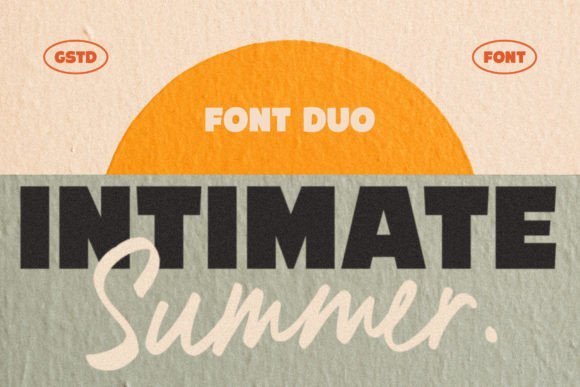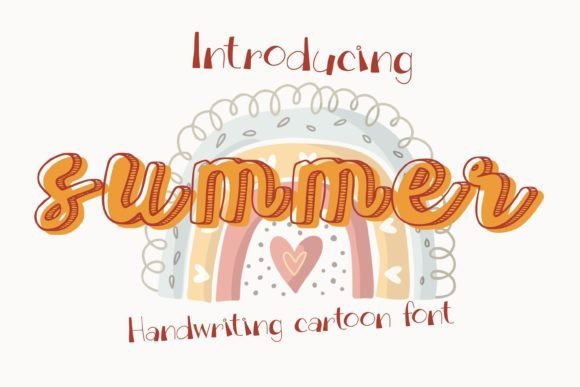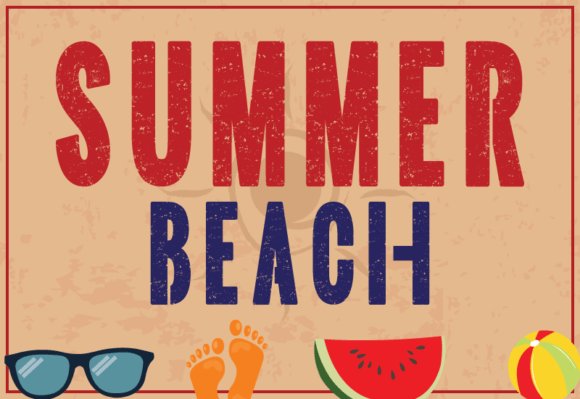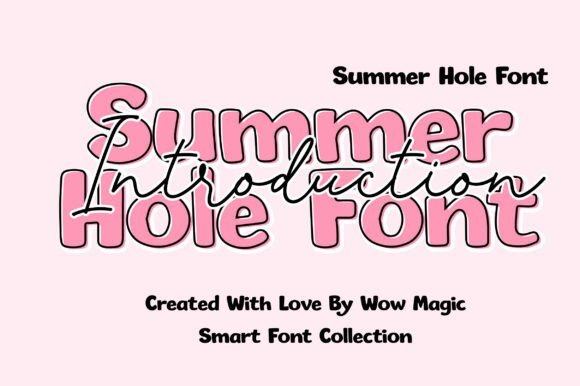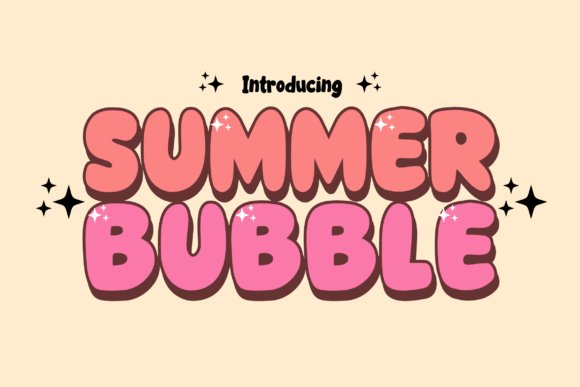
57 Best Summer Fonts for Your 2026 Design Projects
When the sun starts shining, your designs need to reflect that warm, energetic atmosphere. Finding the perfect Summer Fonts is the key to creating posters, social media posts, and tropical branding that feels fresh for the 2026 season. We have compiled 57 unique options that range from playful scripts to bold warm-weather lettering, ensuring your project catches the eye of everyone enjoying the heat.
1. Sunday Summer Font
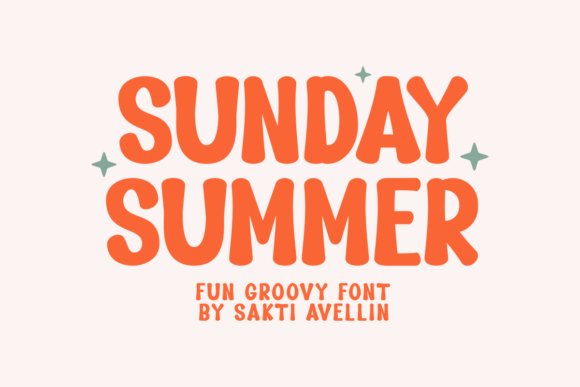
Sunday Summer Font captures the essence of a sun-drenched afternoon with its handcrafted, retro-inspired letterforms. This typeface isn’t just about legibility; it’s about evoking a specific feeling of nostalgia and carefree joy that defines the best Summer Fonts. The organic weight and slightly distressed edges give it an authentic, vintage personality that works brilliantly for physical merchandise like custom tote bags, playful stickers, and apparel designs that need a touch of human warmth.
Beyond its physical applications, Sunday Summer Font excels in the digital realm as a high-impact display face. Its whimsical charm makes it an ideal choice for social media quote graphics, seasonal invitation cards, and even wall décor projects. Designers looking to inject a sense of timeless fun into their layouts will find this font to be a versatile tool, bridging the gap between classic editorial style and modern, playful typography.
2. Santay Beach Font
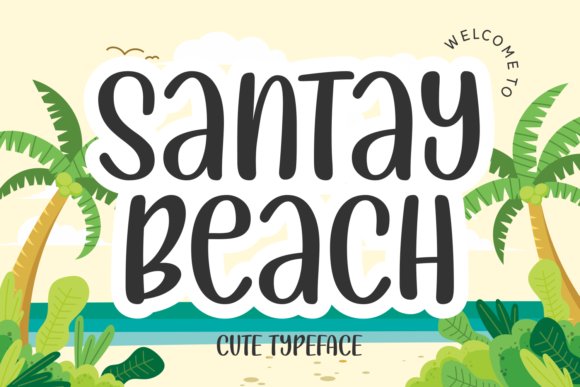
Santay Beach Font is a refreshingly modern sans serif that perfectly embodies the light and breezy aesthetic required for seasonal marketing. Featuring distinctively tall and thin characters, this display font provides a vertical elegance that stands out in crowded layouts. As a primary choice among Summer Fonts, its playful yet clean structure makes it particularly effective for summer sales banners, where grabbing attention while maintaining readability is paramount.
This font’s versatility extends to specialized niches such as food and beverage menus, fashion labels, and editorial covers. Its slender anatomy allows for tight kerning and creative spacing, making it a go-to option for branding projects that need a sophisticated tropical vibe. Whether you are designing a chic logo for a seaside cafe or packaging for a sun-care product line, Santay Beach Font offers the perfect balance of cute character and professional polish.
3. Sunroof & Summer Font
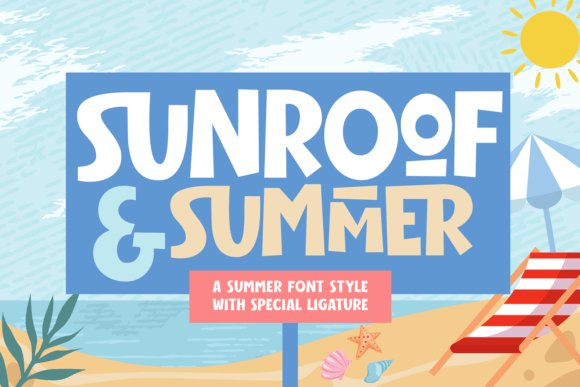
Sunroof & Summer Font brings a sweet and simple energy to any creative project, acting as a breath of fresh air in your design toolkit. This typeface is characterized by its friendly, approachable curves and uncomplicated structure, making it a standout selection among contemporary Summer Fonts. It is designed to feel accessible and joyful, which is exactly why it resonates so well with greeting cards and celebratory DIY projects that require a personal touch.
From a branding perspective, Sunroof & Summer Font is exceptionally functional for package design and brand identities that favor a clean, handcrafted look. Its balanced proportions ensure it remains legible even at smaller sizes on book titles or labels, yet it retains enough personality to carry a logo on its own. For designers working on craft projects or small business branding, this font provides a warm, sunny disposition that instantly brightens up the visual narrative.
4. Summer Festive Font
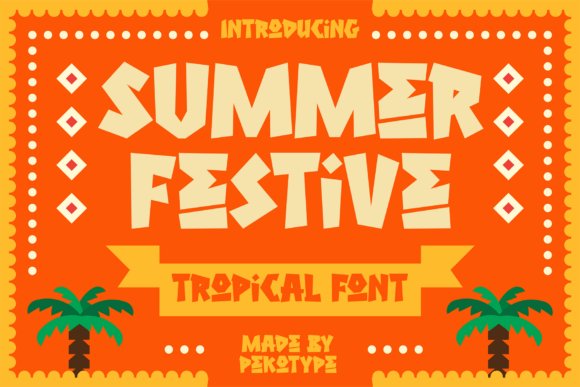
Summer Festive Font is a striking, bold tropical display typeface that draws its inspiration from the laid-back essence of island living and vintage surf culture. Its chunky, hand-carved wood aesthetic creates a tactile feel, making every character pop with personality and a sense of handcrafted authenticity. As a premier choice among summer fonts, its all-caps design and decorative flourishes instantly infuse any layout with high-energy sunshine and a relaxed, vacation-ready atmosphere.
This typeface is exceptionally well-suited for high-impact projects such as music festival branding, beach party graphics, and vibrant café menus. Whether you are designing a logo for a boutique surf shop or crafting engaging social media promos for a seasonal sale, Summer Festive provides a bold, sunny presence that keeps the holiday spirit alive. It includes comprehensive multilingual support and comes in both OTF and TTF formats for seamless integration across various design platforms.
5. Aloha Font
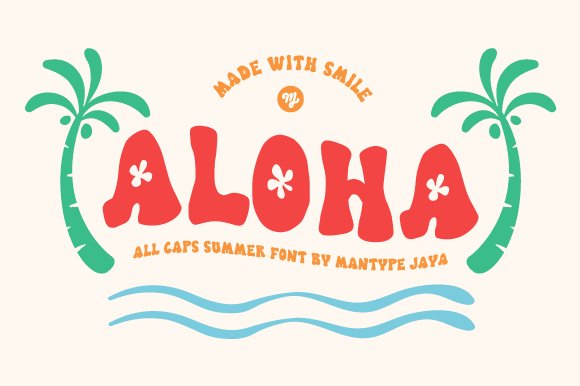
Aloha Font is a delightfully quirky and thick display typeface designed specifically to radiate warmth and a sense of joy. Its bold, rounded letterforms capture the excitement of the warmer months, making it an essential addition to any collection of summer fonts. The playful nature of the strokes gives it a “hand-drawn with a smile” quality that feels both approachable and energetic, perfect for projects that need to break away from more rigid, traditional typography.
Because of its thick weight and unique character, Aloha is a standout choice for physical merchandise, including screen-printed t-shirts, tote bags, and summer-themed stickers. It also works brilliantly for event decorations and children’s party invitations where a fun, inviting vibe is paramount. If your goal is to inject your creative work with a dose of pure, sunny energy, this font offers the personality and legibility needed to make a lasting impression.
Selecting the right typography is essential for capturing the mood of the season, and these 57 Summer Fonts provide plenty of inspiration for your 2026 portfolio. From beachy vibes to sophisticated seasonal styles, this collection ensures you have the right tools to make every design pop. Start using these sunny typefaces today and give your holiday campaigns the look they deserve.